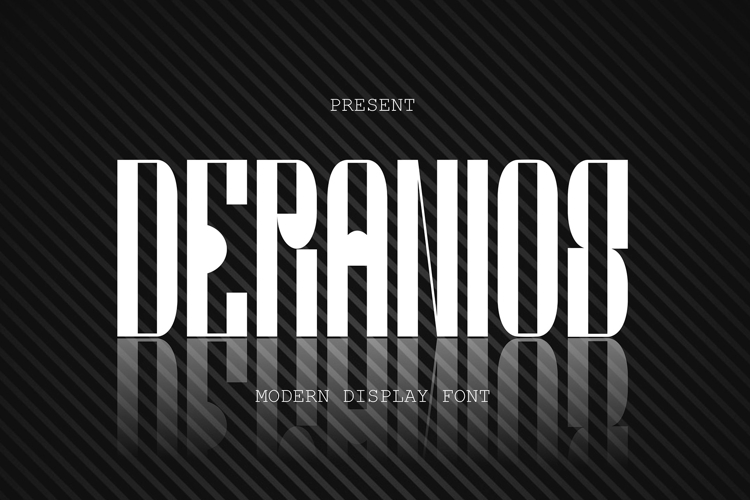
Deranios| Modern Display Sans Serif
Deranios – Modern Display Sans Serif + Italic
Unleash bold sophistication with Deranios, a modern display sans serif designed for impact and elegance. Featuring clean lines, geometric precision, and subtle curves, Deranios is the perfect choice for brands, editorial projects, and high-end designs.
Now with an italic version, Deranios offers even more versatility—perfect for adding dynamic contrast and emphasis to your typography. Whether for logos, headlines, packaging, branding, or posters, this font delivers a sleek, contemporary aesthetic.
✔ Modern & Minimalist Design
✔ All-Caps Display Typeface
✔ Regular & Italic Versions
✔ Clean & Geometric Letterforms
✔ Perfect for Branding, Logos, and Editorial Use
✔ Multilingual Support